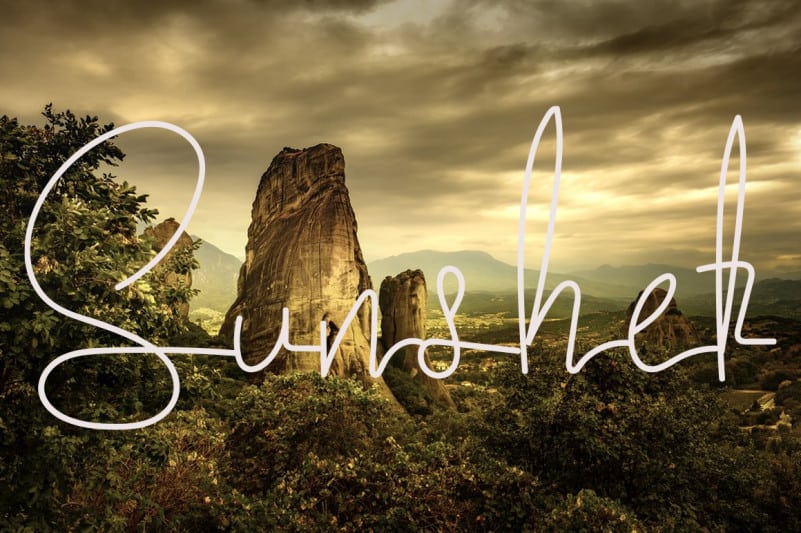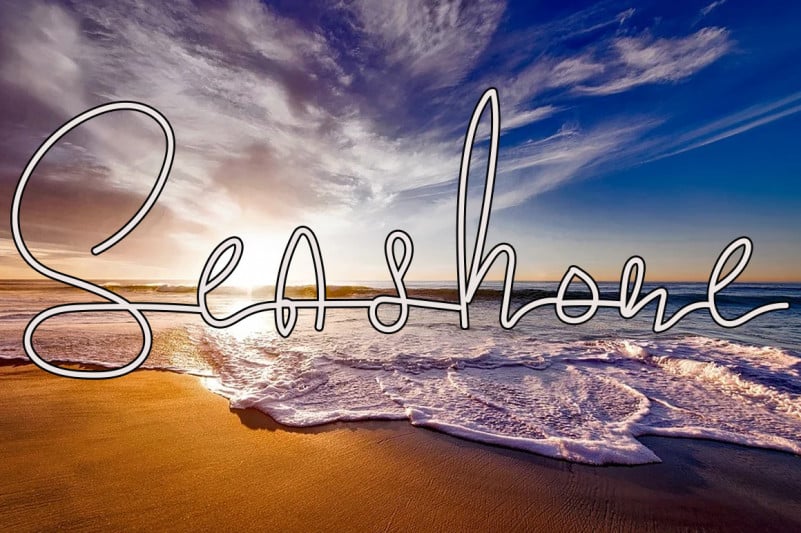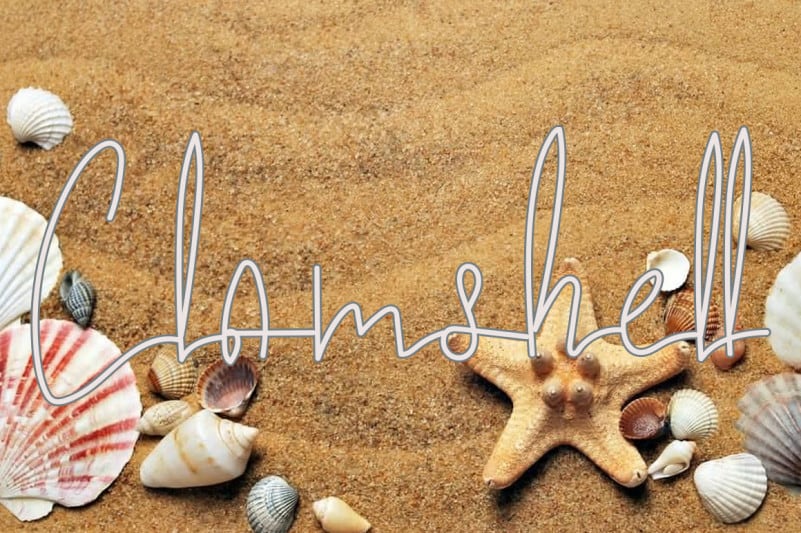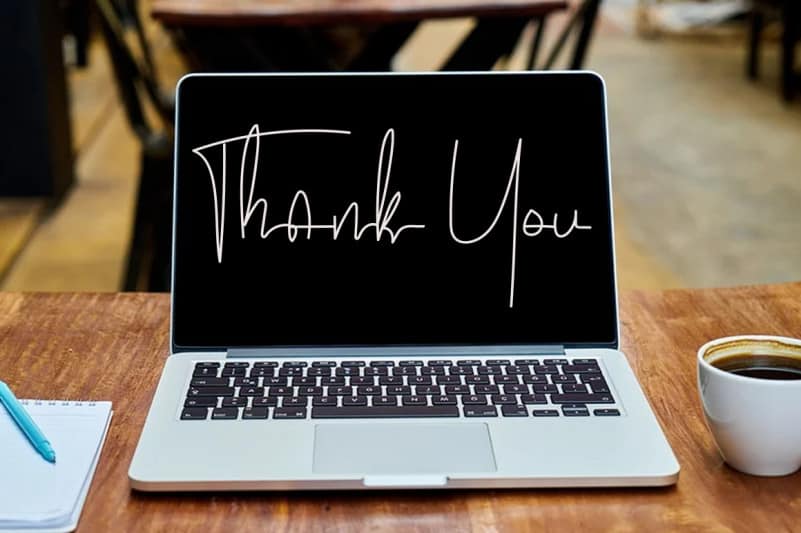
Still Pretty Font
Still Pretty Font is a simple, thin and stylish handwritten font. No matter the topic, this font will be an incredibly asset to your fonts’ library, as it has the potential to elevate any creation.
Latest letters that can be used for various products, invitations, wall hangings, weddings, and more.